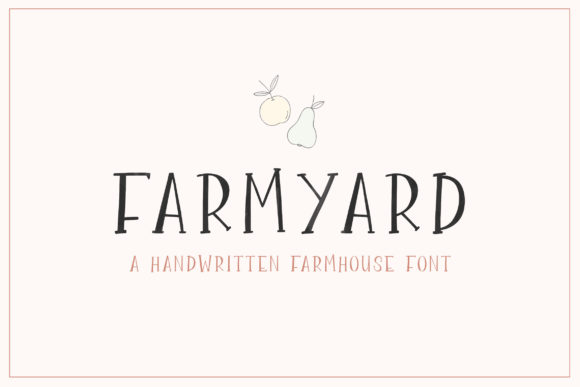
Introducing Farmyard Font, a mesmerizing display font that radiates coolness and individuality. Its meticulously crafted design and intricate detailing make it a treasure in the font world. No matter the subject, this font elevates your creations to new heights.
With Farmyard, you unlock a world of possibilities. Its versatility shines through in a myriad of applications, from quirky invitations and lively social media posts to captivating logos and whimsical T-shirt designs. Let your imagination soar as you explore the endless creative avenues that await.
Whether you're a seasoned designer or just starting out, Farmyard Font is your perfect companion. Its user-friendly nature allows for seamless integration into your projects, while its stunning aesthetics guarantee an impact that leaves a lasting impression.
Join the ranks of savvy designers who have discovered the magic of Farmyard Font. Transform your designs into captivating works of art that radiate personality and charm. Take your creative vision to new frontiers and unlock the full potential of your artistic prowess.
So, why settle for ordinary when you can embrace the extraordinary? Embark on a creative journey with Farmyard Font and watch your designs blossom into masterpieces. The time is now to leave an indelible mark on the world of design.